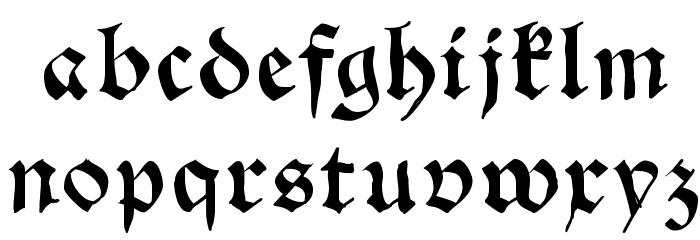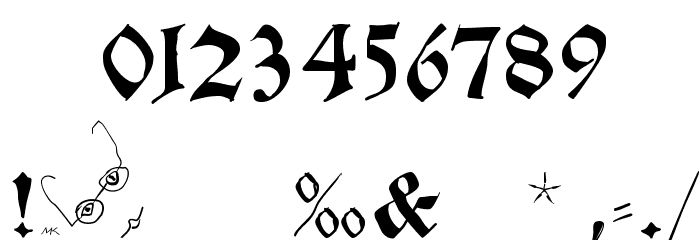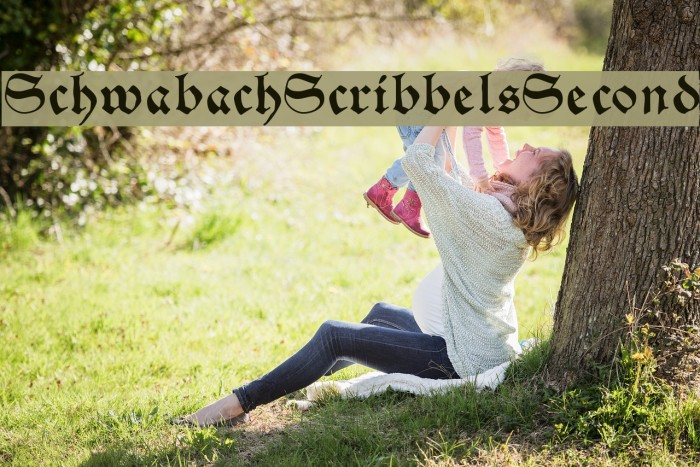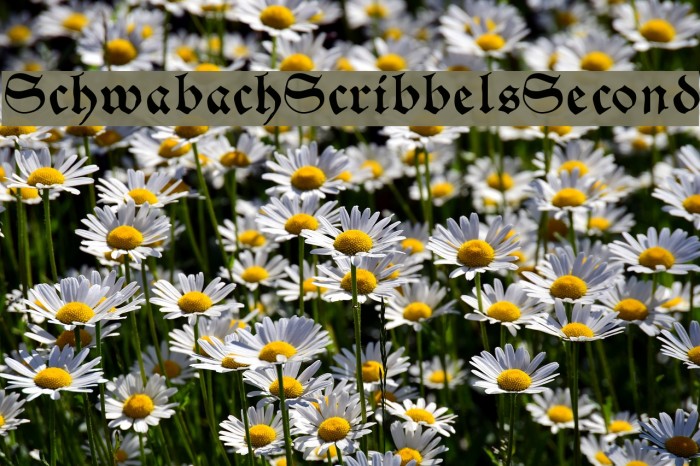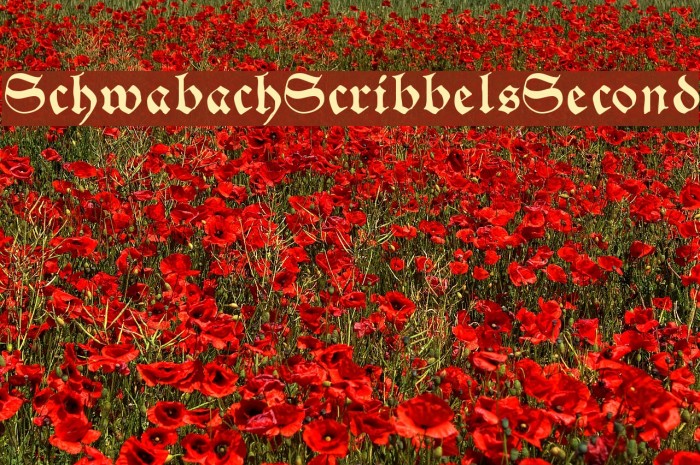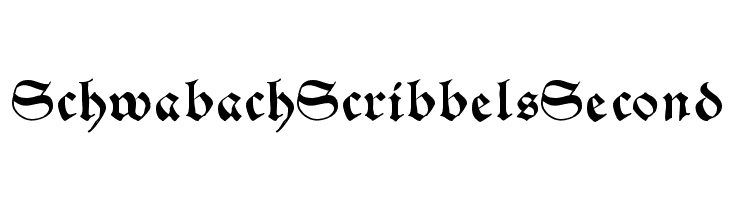
SchwabachScribbelsSecond Font
This font exhibits a classic blackletter style, characterized by its intricate and ornate letterforms. The uppercase letters are bold and angular, with sharp, pointed serifs and dramatic flourishes that give them a distinct medieval appearance. The lowercase letters maintain the same gothic aesthetic, with a consistent stroke weight that enhances readability while preserving the decorative nature of the typeface. The numerals are similarly styled, featuring the same bold, angular lines and sharp edges. Special characters are designed with unique embellishments, adding to the overall historical and artistic feel of the font. This typeface is perfect for projects that require a touch of tradition and elegance, such as invitations, certificates, or branding for luxury products.
A bold, ornate blackletter font with sharp serifs and medieval flair.
- Proposed Projects: Ideal for historical documents, wedding invitations, luxury branding, and decorative headlines.
- Overall Style: Vintage
- Use Case: Headlines, Decorative text, Branding